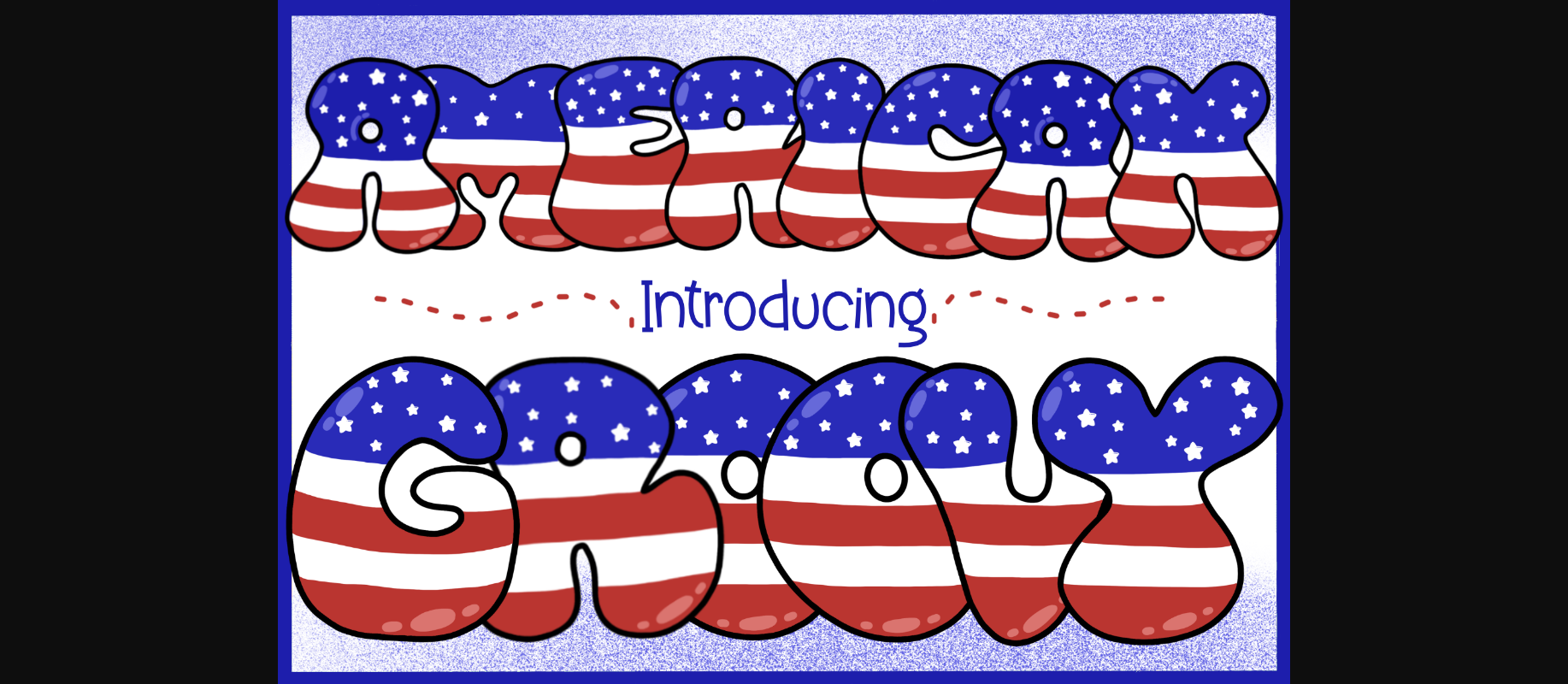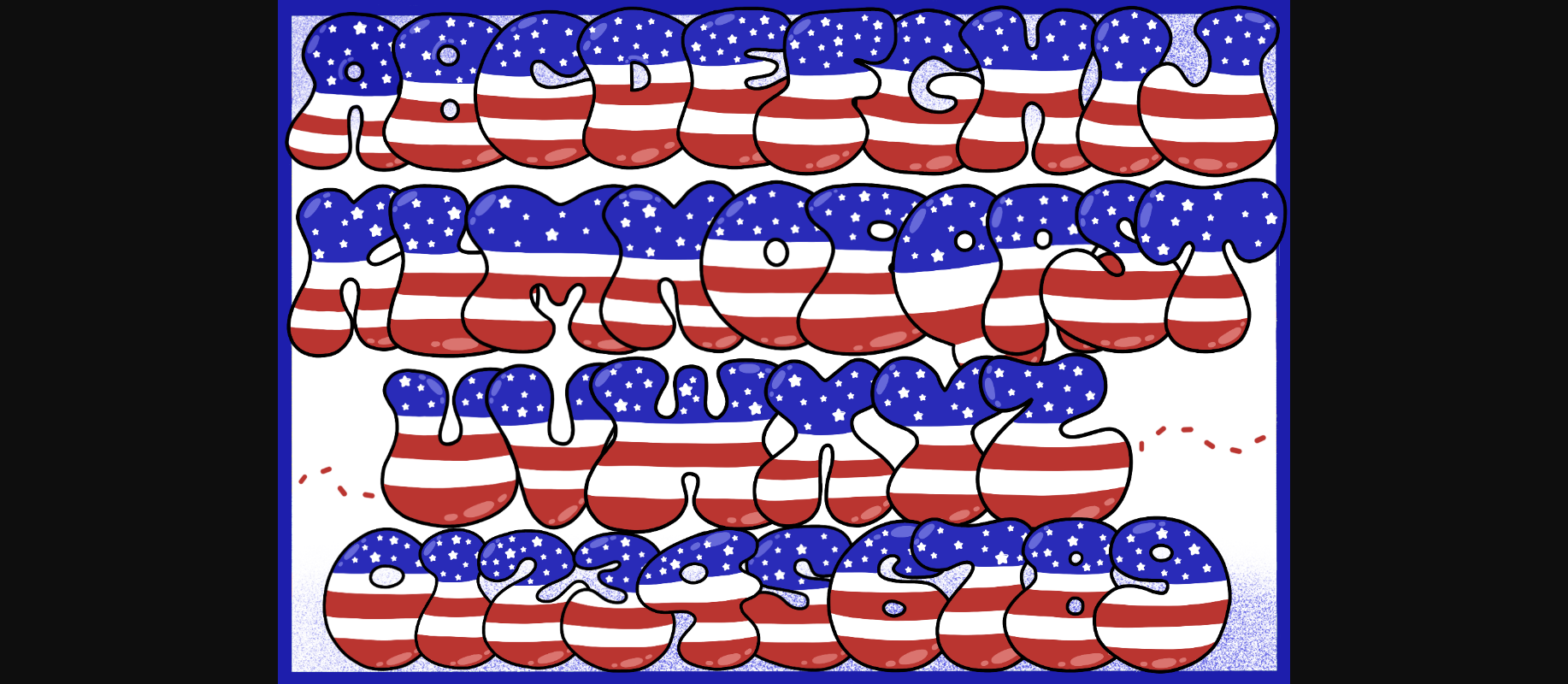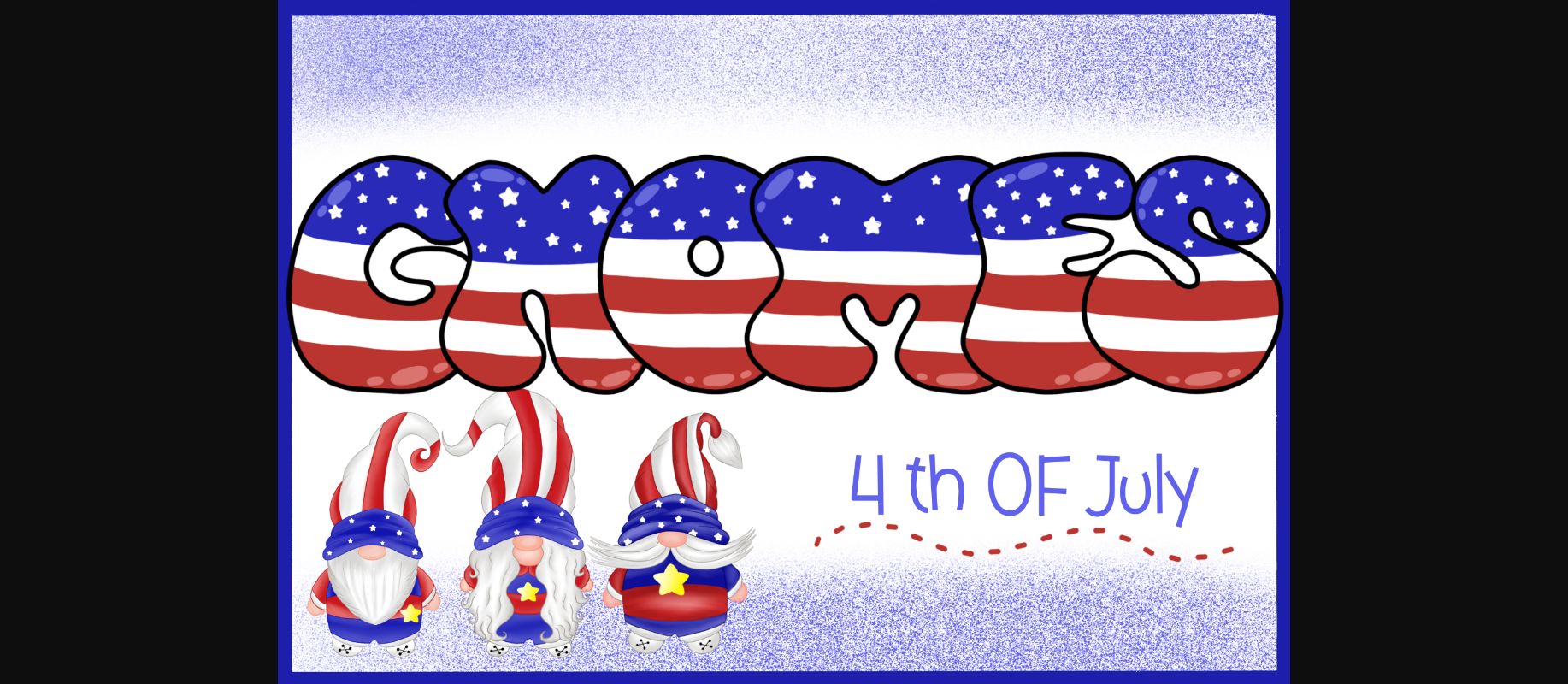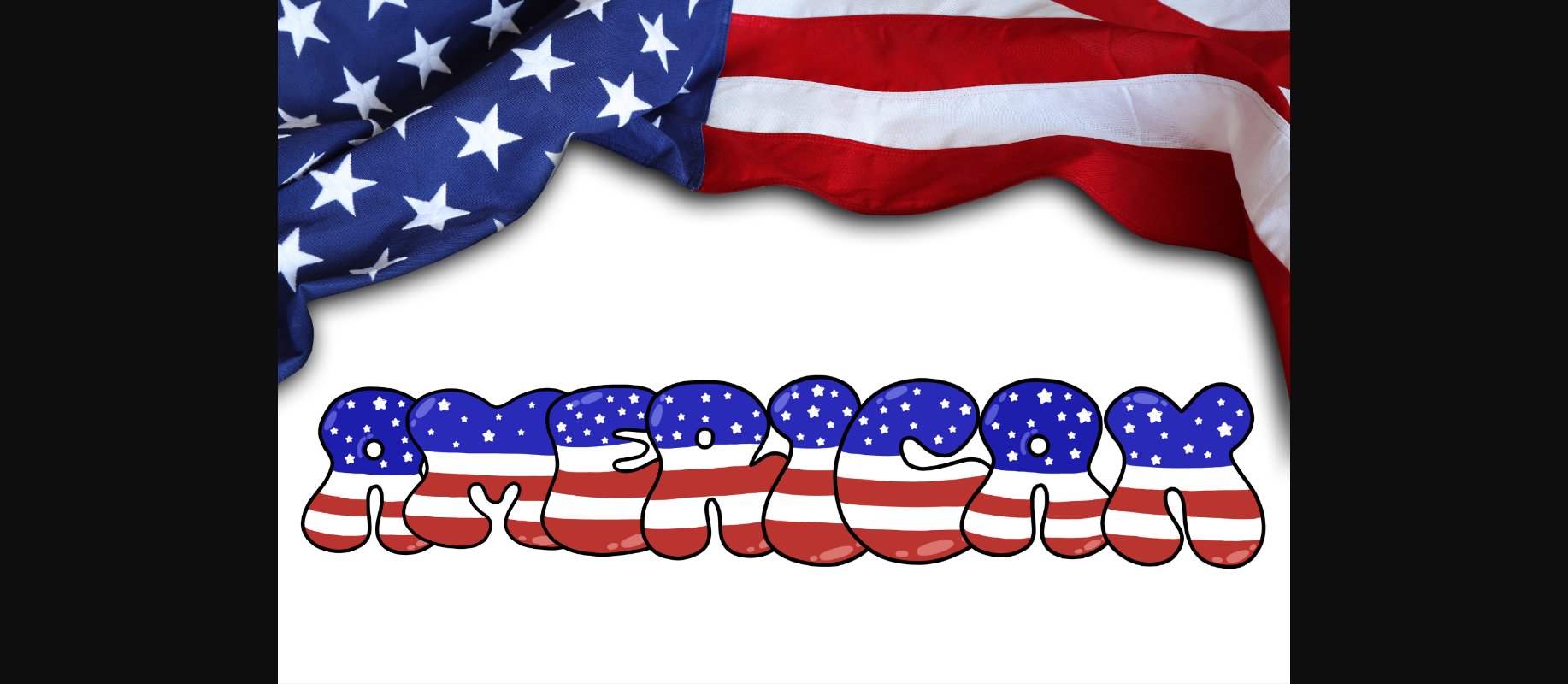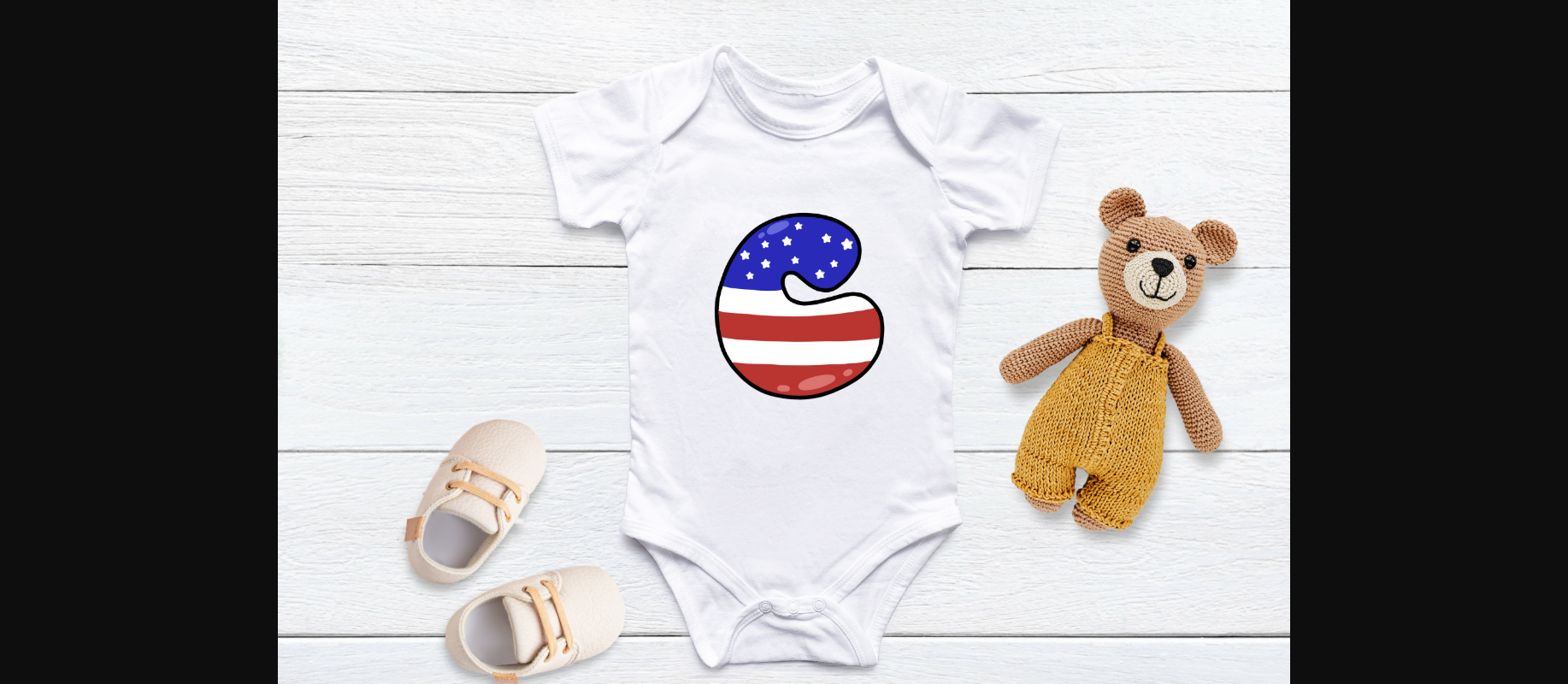
American Groovy Font
About American Groovy Font
American Groovy is a captivating and patriotic decorative font inspired by the United States of America’s flag. This unique typeface beautifully embodies the spirit of American pride, showcasing the iconic Stars and Stripes.
Whether you’re designing patriotic-themed posters, invitations for Fourth of July celebrations, or any project that calls for a touch of American symbolism, the American Groovy is the perfect choice. It effortlessly captures the essence of American identity and adds a vibrant and celebratory atmosphere to any design.